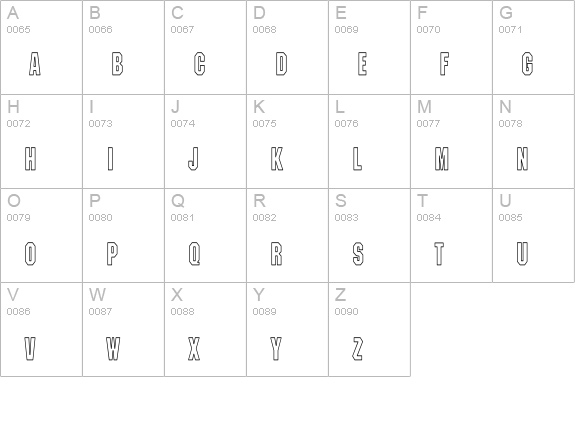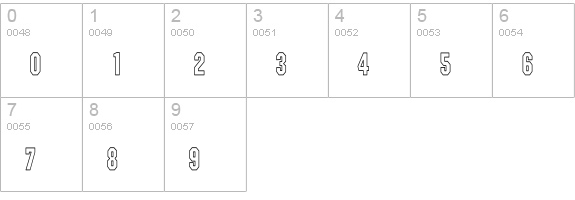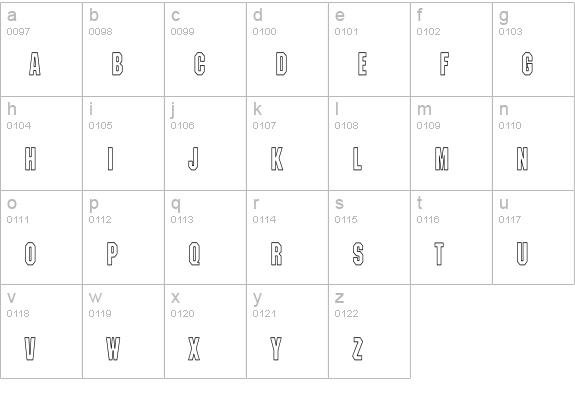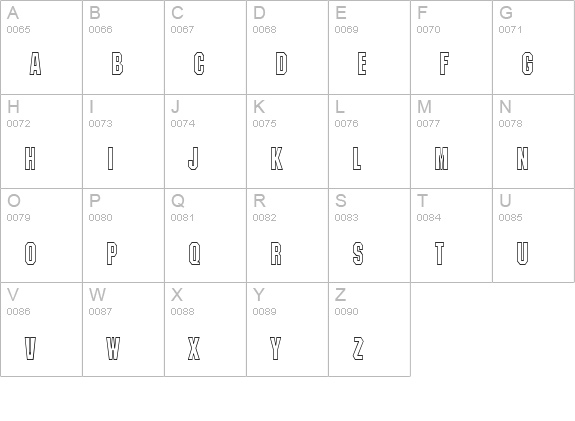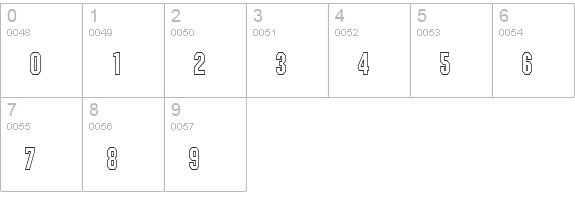
Introducing Machine-LightHC font, a sleek and modern typeface that effortlessly combines sophistication with a touch of futuristic charm. Designed with precision and attention to detail, this font boasts clean lines and precise curves, making it perfect for a wide range of design projects. Machine-LightHC font is the epitome of elegance, with its slender and graceful letterforms that exude a sense of refined style. Its light weight adds an airy and delicate touch, making it ideal for conveying a sense of sophistication and modernity. Whether it's for a logo, website, or any other creative endeavor, this font will elevate your design to new heights. What sets Machine-LightHC font apart is not only its impeccable design but also its availability. Unlike many other premium fonts, Machine-LightHC is freely available to download at FontsMarket.com. This means that you can enjoy the beauty and versatility of this font without any restrictions or limitations. With its wide range of characters and extensive language support, Machine-LightHC font is a versatile choice for any project. The clean and legible letterforms ensure readability across different mediums, while the modern and elegant aesthetic adds a touch of sophistication. Machine-LightHC font is the perfect choice for those who seek a balance between modernity and elegance. With its sleek design and free availability, it's a font that truly delivers on both style and accessibility. So why wait? Download Machine-LightHC font today from FontsMarket.com and take your design projects to the next level.